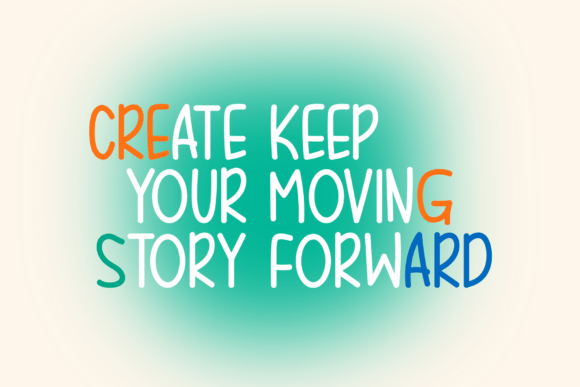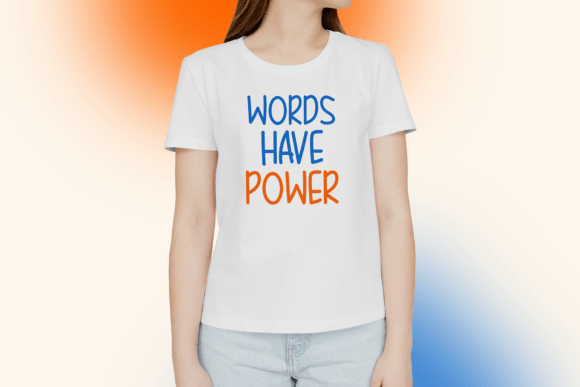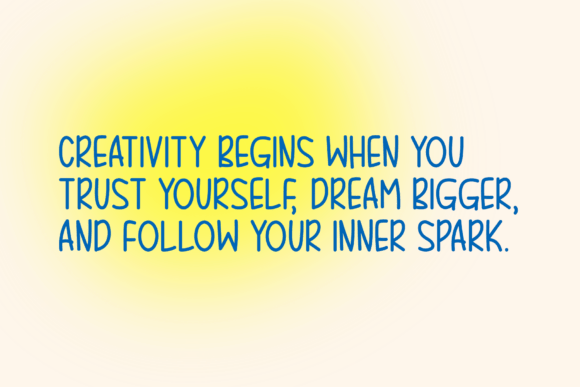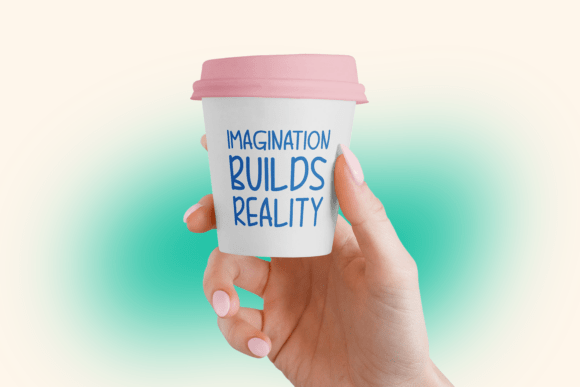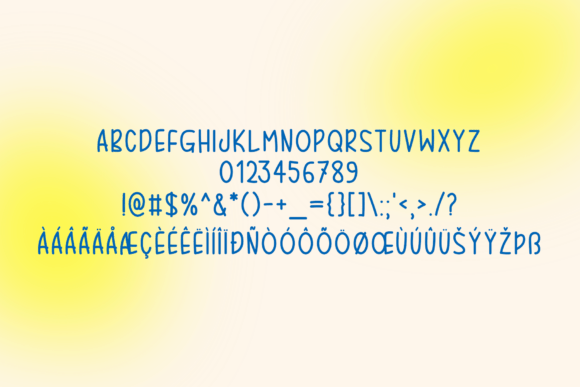
Start Your Next Project with a Fresh Perspective
Have you ever sat in front of a blank page, struggling to find the perfect font to capture the essence of your idea? You know the feeling: a blank slate, a spark of creativity, and a desire to bring your vision to life. For designers and creatives, finding the right font can make all the difference between a good design and a great one.
That’s where Begin Fresh Font comes in – a charming handwritten font that combines elegance with a playful, modern touch. Perfect for adding a personal and creative feel to your projects, Begin Fresh brings warmth and character to both print and online designs, making every project stand out with a fresh, handcrafted look.
Begin Fresh Font Key Features
- Unique Characteristics: Begin Fresh Font features a unique blend of modern and classic elements, with a clean and minimalist design that makes it suitable for a wide range of applications, including branding, advertising, and editorial content.
Begin Fresh Font Review
Overall, I think “Begin Fresh Font” is a solid choice for a clean and modern sans-serif font. Here are some things that work well:
- ✨ The font’s legibility is excellent, making it perfect for body text.
- ✨ The font’s x-height is well-balanced, making it easy to read at various sizes.
- ✨ The font’s sans-serif design gives it a sleek and modern look.
- ⚠️ The font may be too simplistic for some designers who prefer a more ornate or decorative look.
- ⚠️ The font may not be suitable for titles or headlines due to its lack of personality and flair.
- ⚠️ Some users may find the font too similar to other sans-serif fonts, making it hard to stand out.
Overall, I would recommend “Begin Fresh Font” for projects that require a clean and modern sans-serif look. However, it may not be the best choice for projects that require a lot of personality or flair.
Getting the Most Out of Begin Fresh Font
Begin Fresh Font is ideal for creating modern, clean, and minimalist designs. Use it for headings, titles, and short paragraphs to add a touch of sophistication to your projects. Experiment with different font sizes and colors to create visual hierarchy and emphasis.
Begin Fresh Font is commonly used for:
– Branding and identity design
– Web design and development
– Print materials such as brochures and business cards
– Digital presentations and reports
Alternatives to Begin Fresh Font
Lato is a modern sans-serif font designed by Łukasz Dziedzic. It is ideal for use in digital products, logos, and corporate branding. Lato is more geometric and clean compared to Begin Fresh Font, which makes it suitable for modern and tech-related designs.
Comparison: Lato is more versatile and comes in a wider range of weights, while Begin Fresh Font is more playful and cursive. Lato is a better choice when you need a clean and modern font for digital products.
Open Sans is a popular sans-serif font designed by Steve Matteson. It is highly legible and suitable for use in digital products, magazines, and websites. Open Sans is more neutral and clean compared to Begin Fresh Font, which makes it suitable for a wide range of designs.
Comparison: Open Sans is more neutral and comes in a wider range of weights, while Begin Fresh Font is more playful and cursive. Open Sans is a better choice when you need a clean and neutral font for general use.
What is the recommended font size for the Begin Fresh Font?
The recommended font size for the Begin Fresh Font varies depending on the application and intended use. However, a general guideline is to use font sizes between 12 and 24 points for body text, and 48 points or larger for headings. This will ensure optimal readability and legibility.